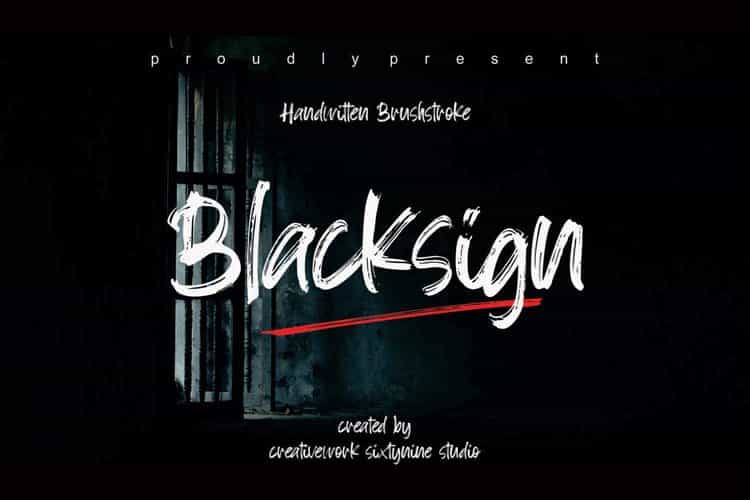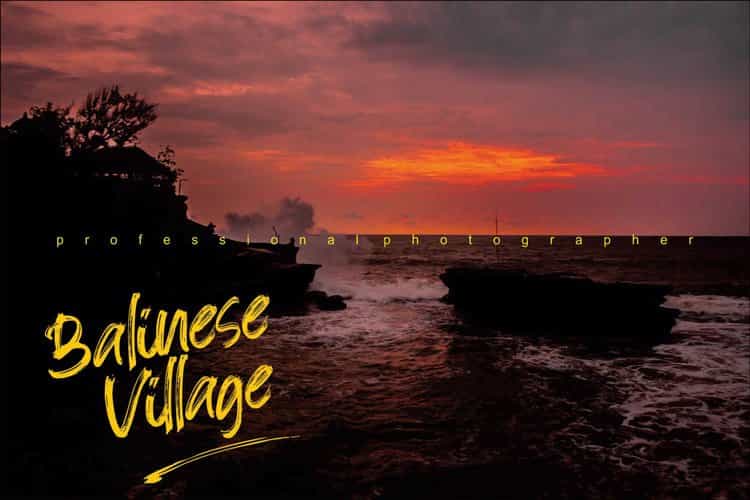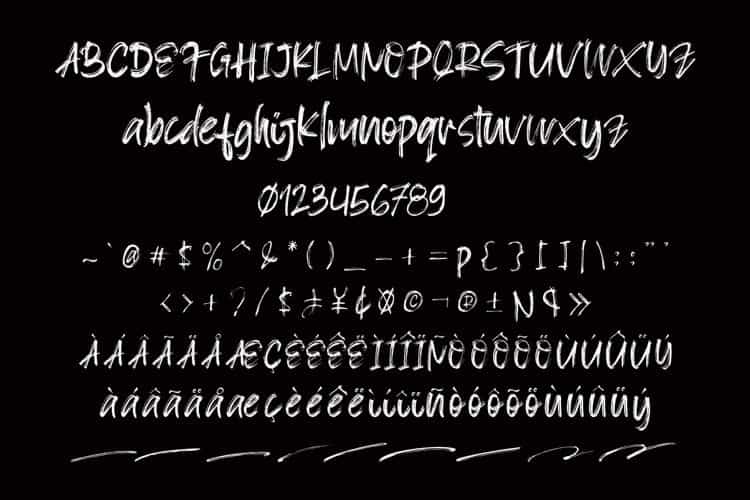
Blacksign font is an incredible source of inspiration that’s created directly on paper with a brush pen in order to achieve an authentic natural tone. I believe it makes for the ideal font choice when working on product promotional posters, magazines or any other project that demands natural touches in its design.